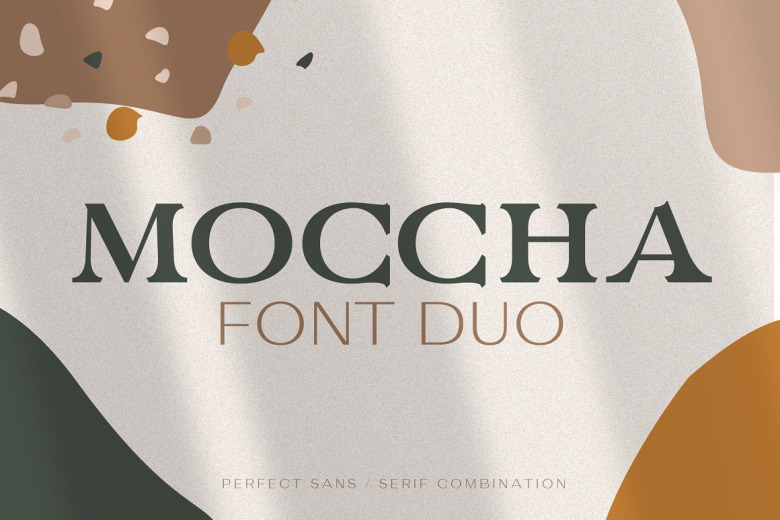
Moccha Font
Moccha is here – an elegant luxury font duo containing a modern sans-serif and classic serif typefaces. The font combination is great for all kinds of elegant designs. It is working perfectly on large display titles, logos, and small paragraphs.
The best part is that you can do many combinations and creative lockups. This is great for all branding works and elegant invitation designs.
Moccha Font Duo